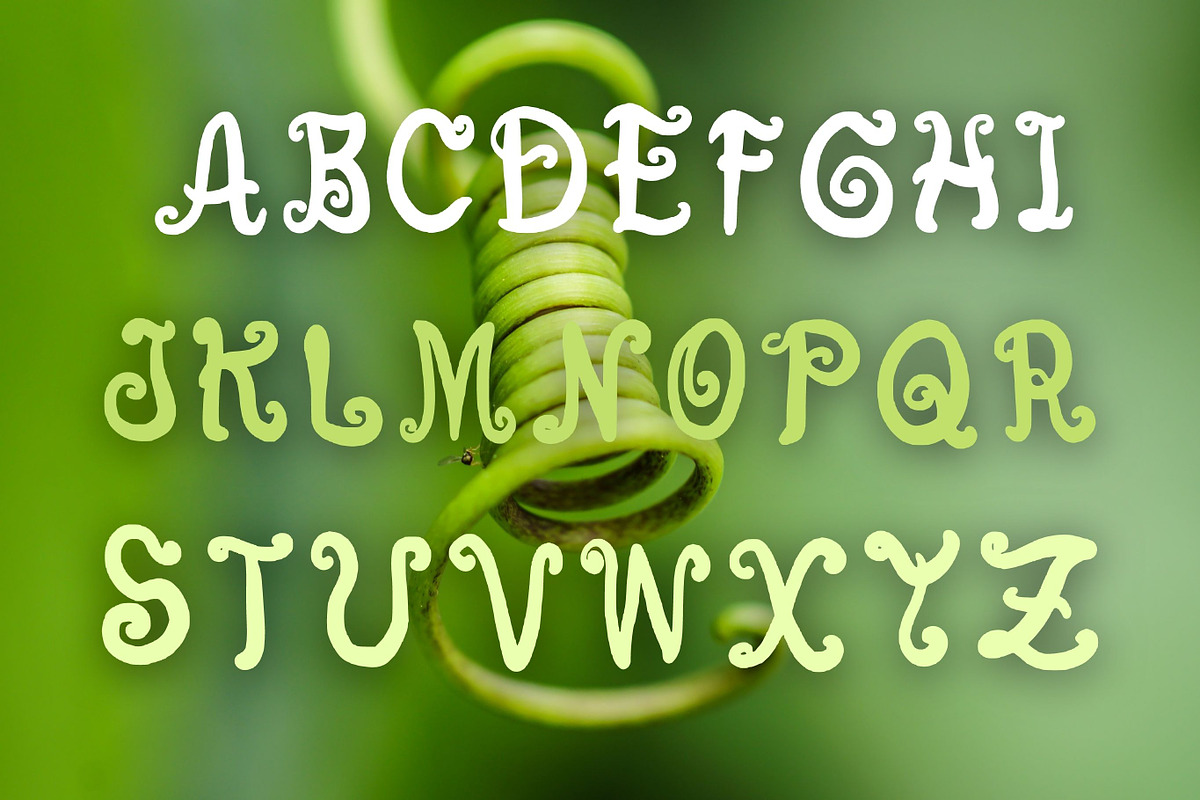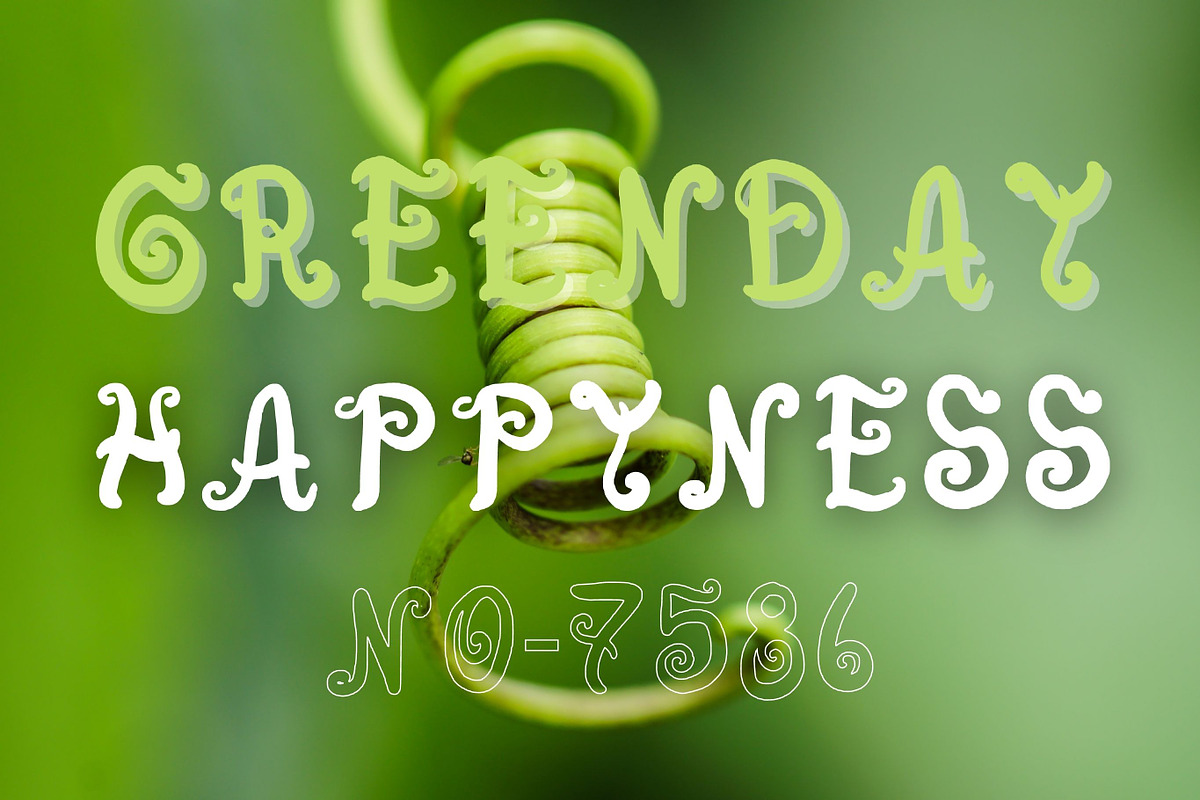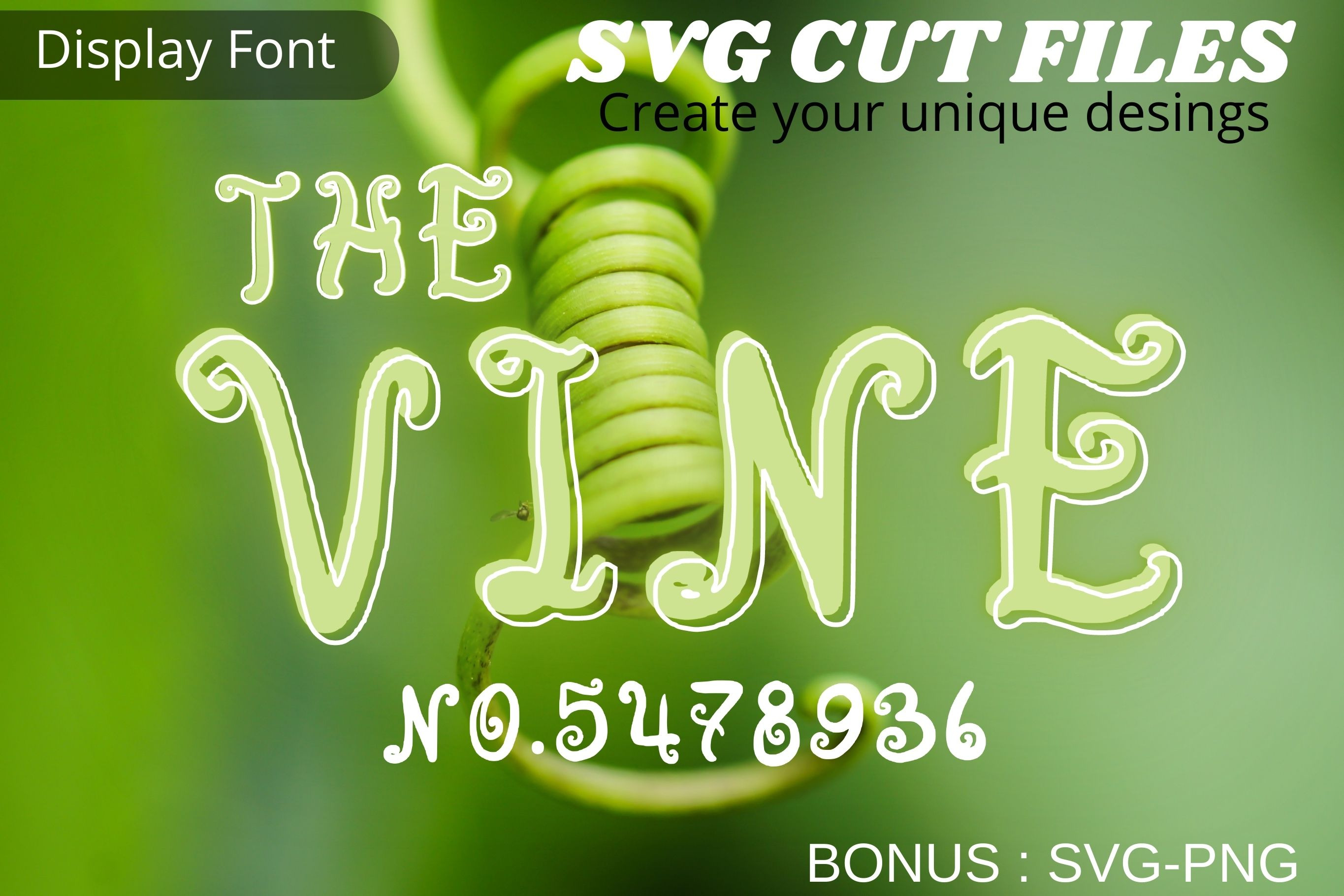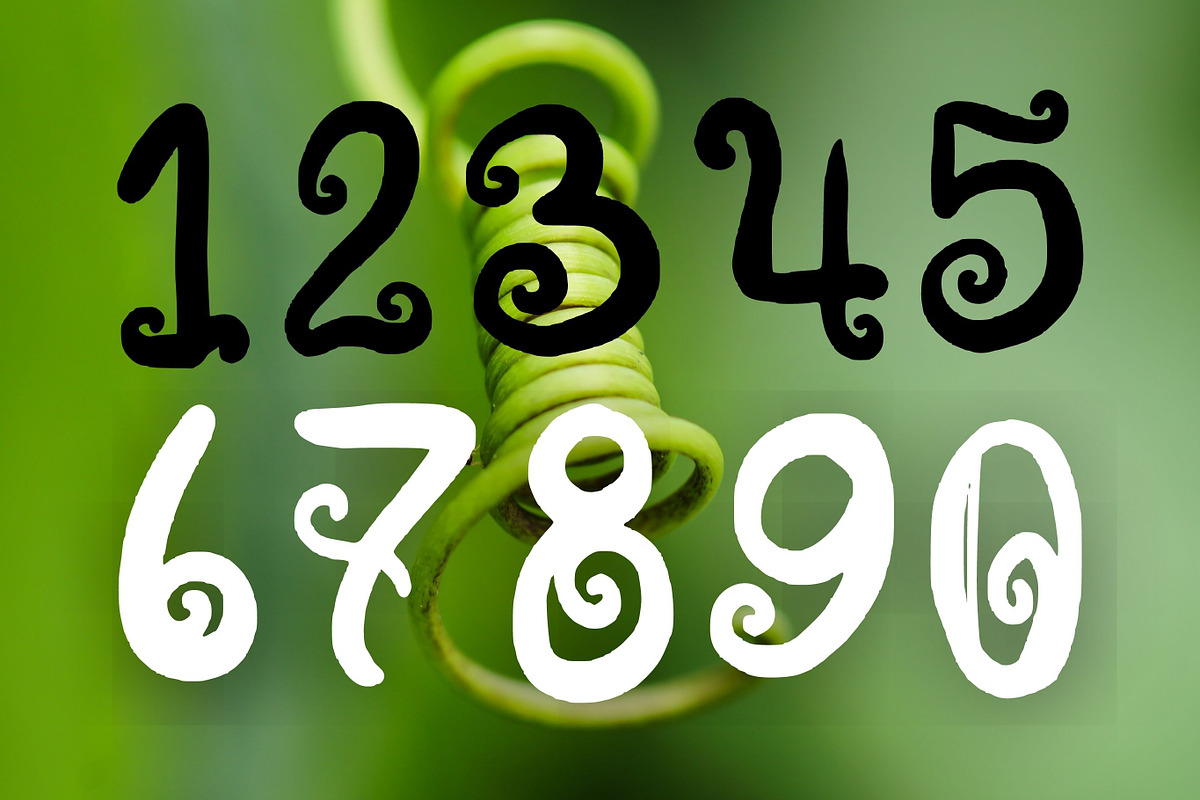
The Vine font, SVG font
Font is a cool, useful and unique decorative font. You can use it for various projects, such as blog posts, logos, branding, ads, invitations, greeting cards, planners, photo albums, decorations, and much more. Add it to any of your designs, and enjoy the results!